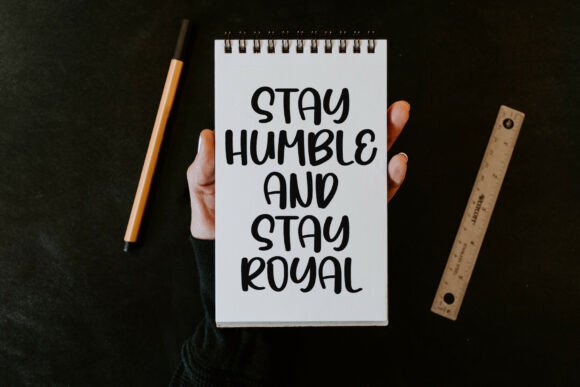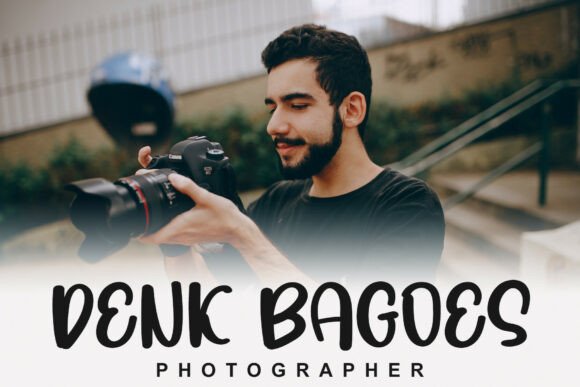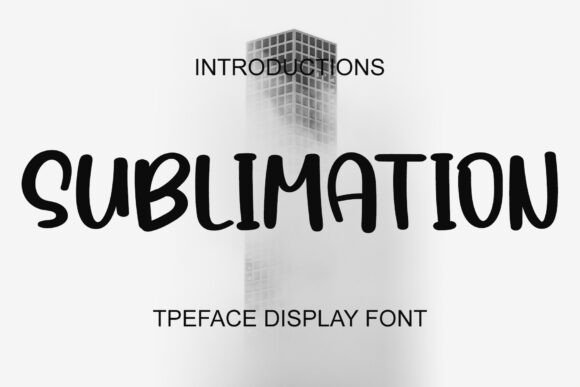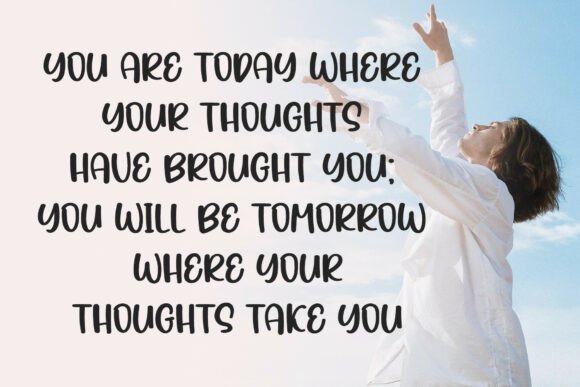
Sublimation Font: A Playful Handwritten Font for Cute Cricut & DIY Projects
About the Sublimation Font
Discover the charm of Sublimation Font. This font is a perfect blend of modern aesthetics and classic appeal. Sublimation is a casual and creative font that exudes warmth and friendliness. Its round, playful strokes create a relaxed and approachable feel, perfect for personal projects, invitations, and social media graphics. The font’s charming, hand-drawn aesthetic adds a fun and unique touch to any design.